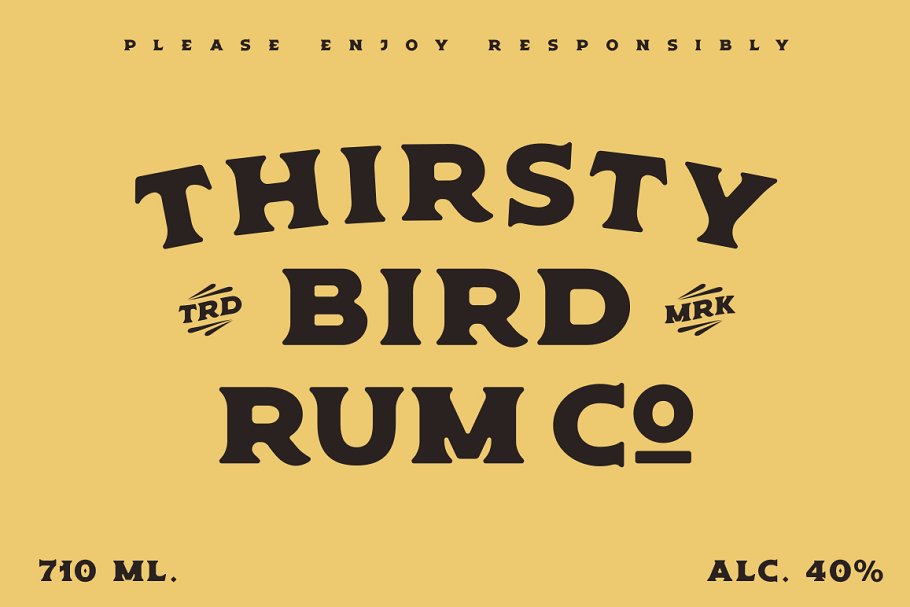
Are you looking for the best fonts for bold embroidery that will make your project stand out from the rest? Look no further than Old Spirits Display Font, a stunning serif font created by Sean Coady that is sure to elevate your design game.
With its bold, Americana-inspired display face, Old Spirits is the perfect font for those looking to make a statement. It comes equipped with an all upper-case glyph set, including a strong uppercase with spurs and a clean lowercase, making it a versatile option for any project.
But that's not all - when you purchase Old Spirits, you also get 2 bonus styles with two varying degrees of an ink/stamp effect for an authentic, aged, type aesthetic. Activate the catchwords by placing a lowercase 'c' before the capped word (e.g. cWITH), and enjoy full language support for the following languages: Breton, Catalan, Czech, Danish, Estonian, English, Finnish, French, German, Hungarian, Icelandic, Italian, Latvian, Lithuanian, Norwegian, Polish, Portuguese, Romanian, Scottish Gaelic, Slovak, Slovenian, Spanish, Swedish, Turkish, Welsh.
Don't settle for ordinary fonts that will make your project blend in. Old Spirits is the perfect way to add character, style, and personality to your designs. Whether you're creating a logo, designing a website, or working on a print project, this font is sure to make a lasting impression.